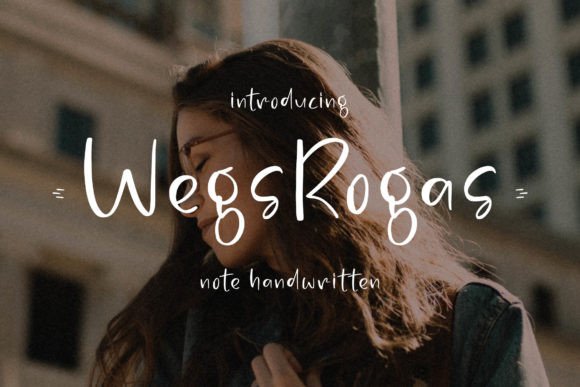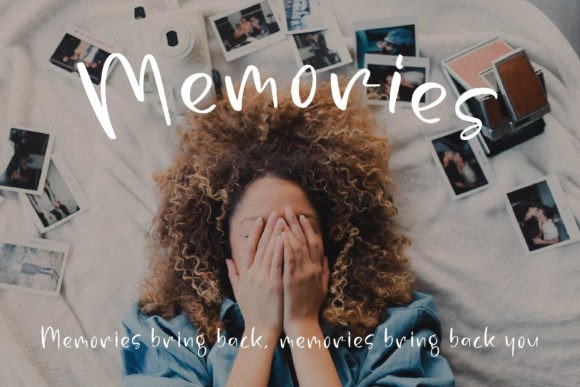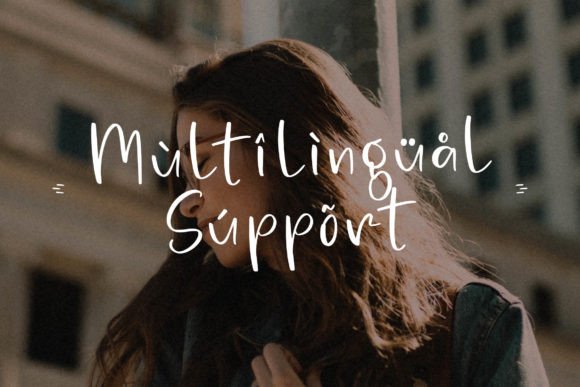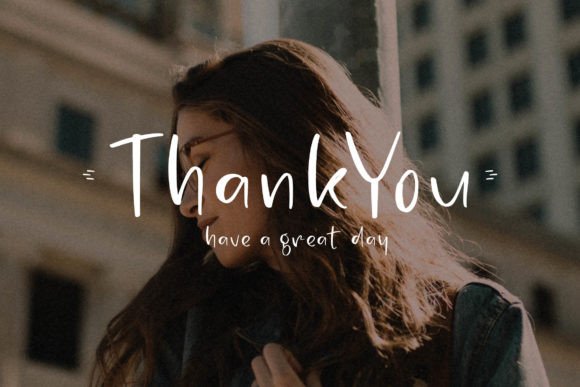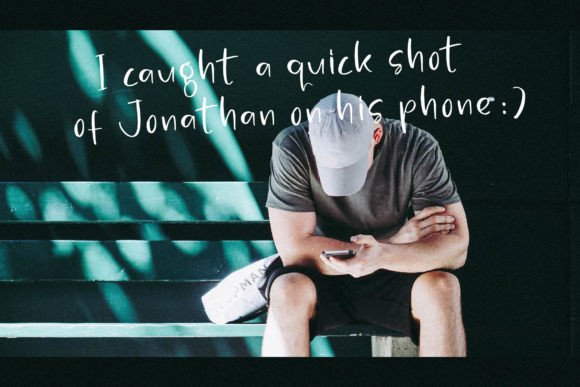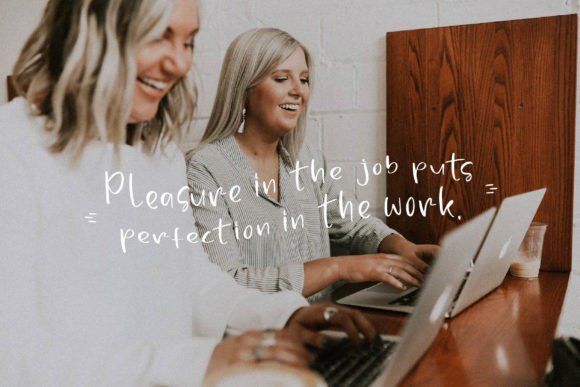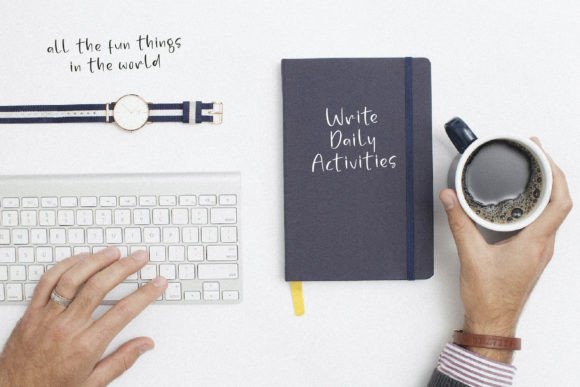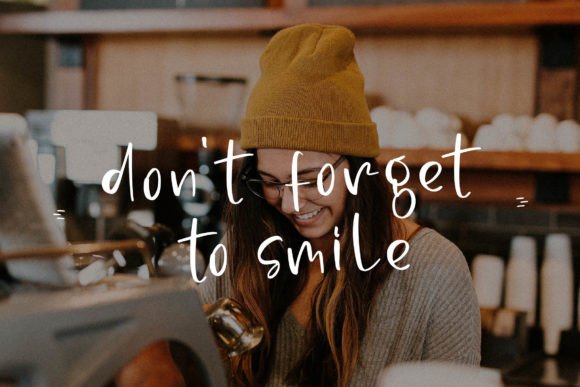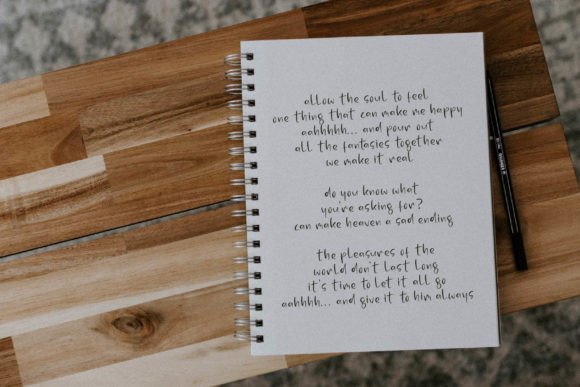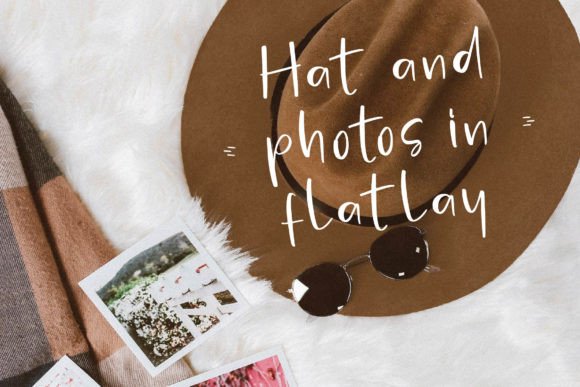
Wegsrogas Font
About Wegsrogas Font
**WegsRogas: The Handwritten Font for Your Creative Projects**
Meet WegsRogas, a versatile handwritten font that lends its unique charm to a wide range of creative projects. Whether you’re working on branding, product packaging, posters, or even personal projects like greeting cards and invitations, WegsRogas is the ideal font to add a beautiful script taste to your work.
**A Font for Every Occasion:**
WegsRogas is the all-rounder font that can suit any occasion. From professional branding and product packaging to personal projects like t-shirts and greeting cards, this font brings a touch of elegance and character to your designs.
**Uniquely Handwritten:**
What sets WegsRogas apart is its handwritten style. It adds a personal and human touch to your designs, making them relatable and engaging. The font’s uniqueness shines through in every character, creating a memorable impression.
**Endless Creative Possibilities:**
With WegsRogas, your creative possibilities are limitless. This font encourages experimentation, allowing you to explore various design ideas and applications. Whether you’re a professional designer or a DIY enthusiast, WegsRogas fuels your creativity.
**Elevate Your Branding:**
For businesses and brands, WegsRogas is a powerful tool to elevate your branding. Use it in logos, name cards, labels, and packaging to make your products or services stand out. WegsRogas adds an element of sophistication that leaves a lasting impact.
**Personal Touch to Celebrations:**
When it comes to personal projects like invitations, greeting cards, and event stationery, WegsRogas adds a personal touch that celebrates the special moments in life. It makes your designs unique and memorable.
**Perfect for Print and Digital:**
Whether you’re designing for print or digital platforms, WegsRogas shines in both. Its clarity and readability ensure that your message is conveyed effectively, regardless of the medium.
**Leave a Lasting Impression with WegsRogas:**
In summary, WegsRogas is the handwritten font that can enhance any creative project, from professional branding to personal celebrations. Its unique style, versatility, and ability to add a personal touch make it a valuable addition to your design toolkit. When you want to leave a lasting impression and add a touch of elegance to your work, WegsRogas is the font of choice.